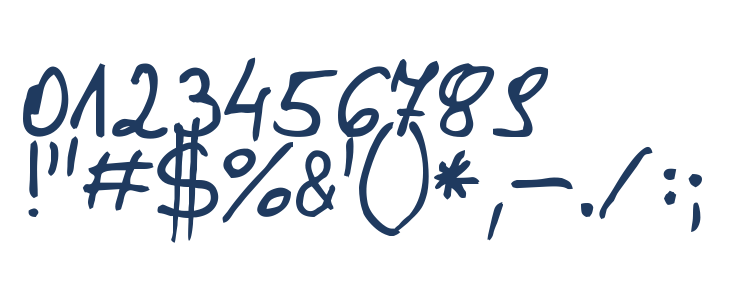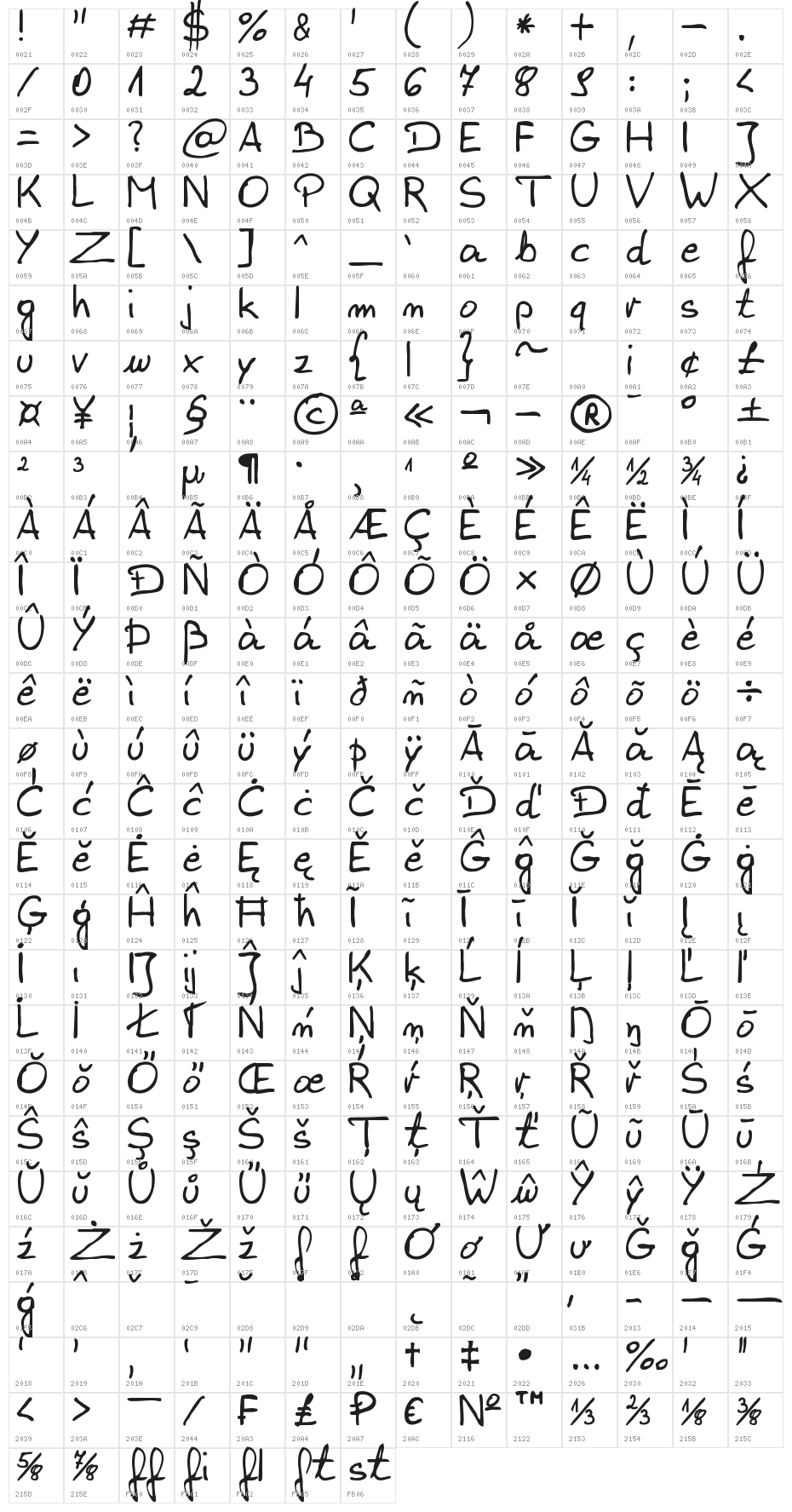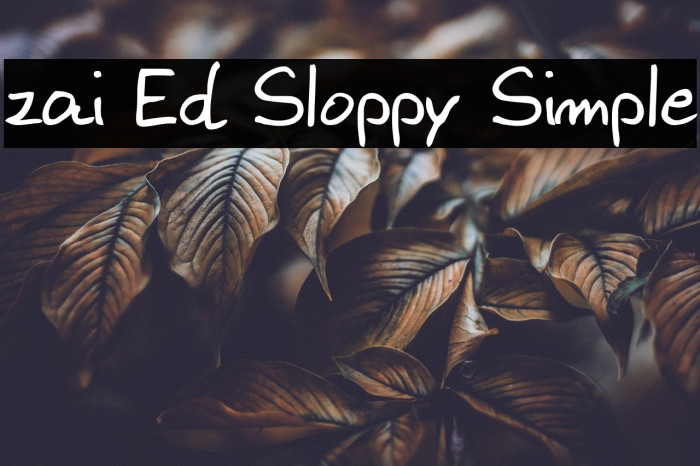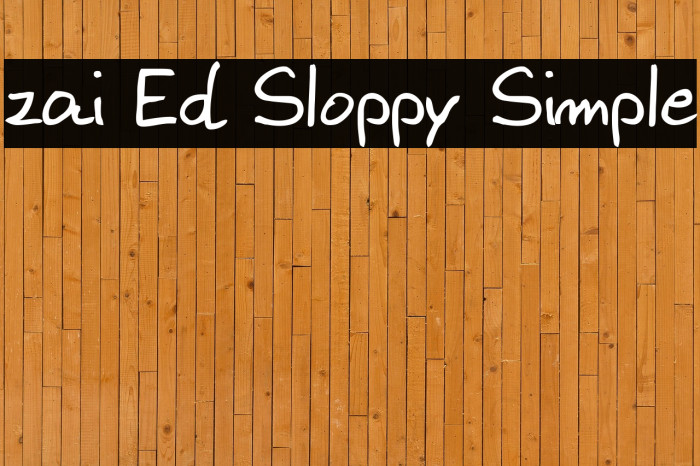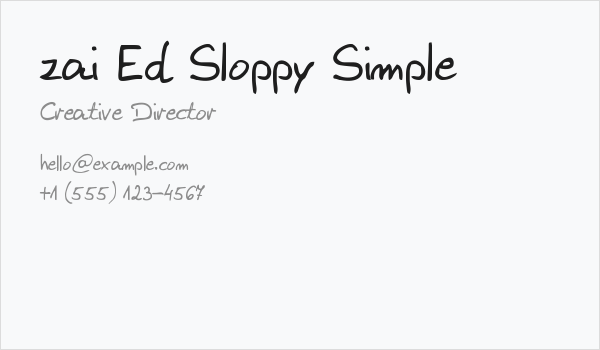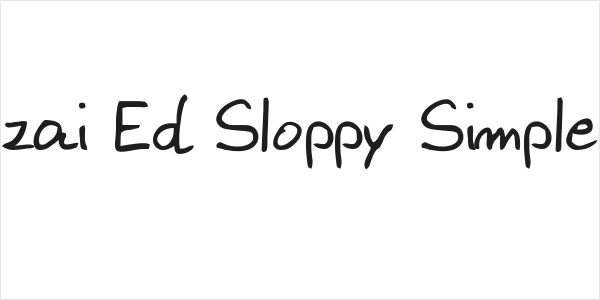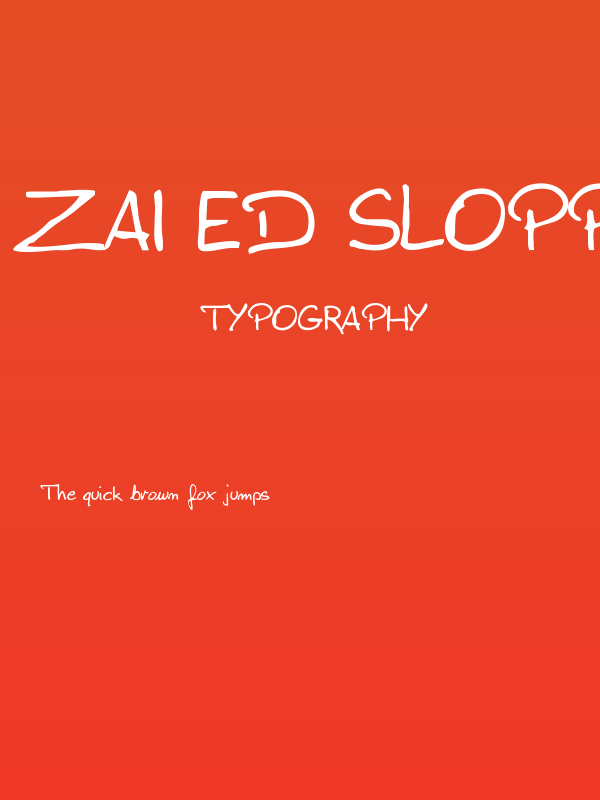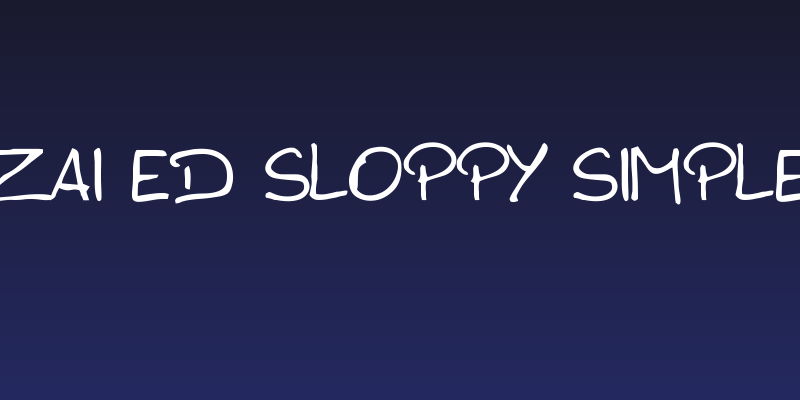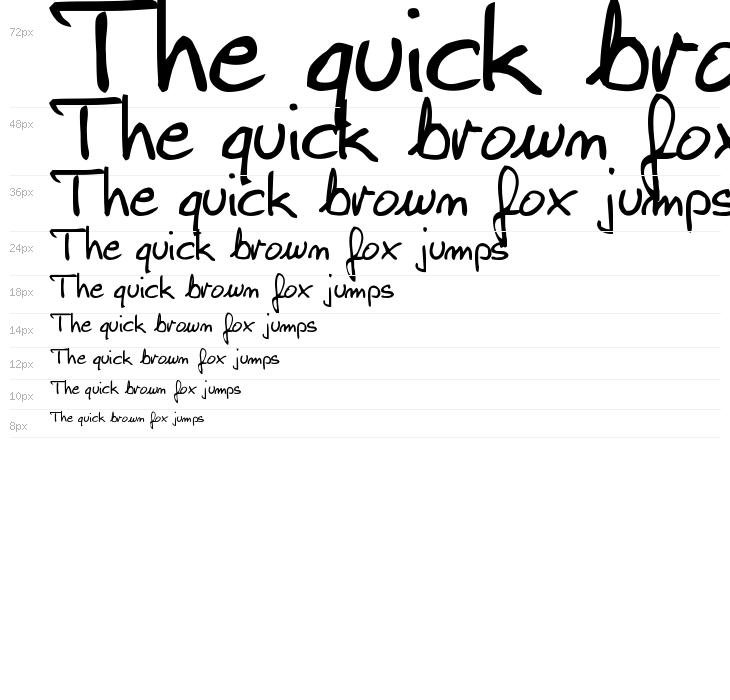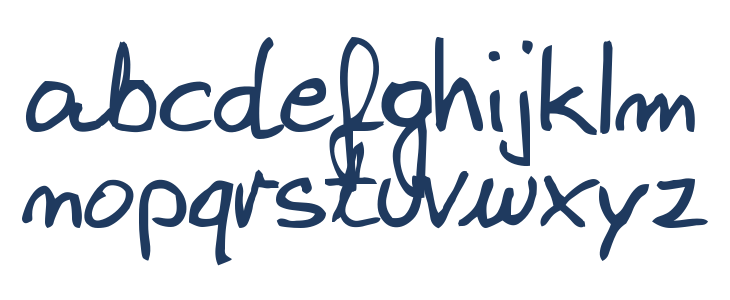
zai Ed Sloppy Simple Font
zai Ed Sloppy Simple Description
This font features a playful and informal style, characterized by its hand-drawn appearance. The letters have a casual, almost whimsical quality, with uneven strokes and a slightly irregular baseline that adds to its charm. The uppercase letters are bold and prominent, while the lowercase letters maintain a consistent flow, enhancing readability despite their quirky design. The numbers and special characters follow the same informal aesthetic, making the font suitable for creative and lighthearted projects. Its overall appearance is reminiscent of handwriting, giving it a personal and approachable feel.
| Proposed Projects | Ideal for greeting cards, children's books, casual branding, and creative posters. |